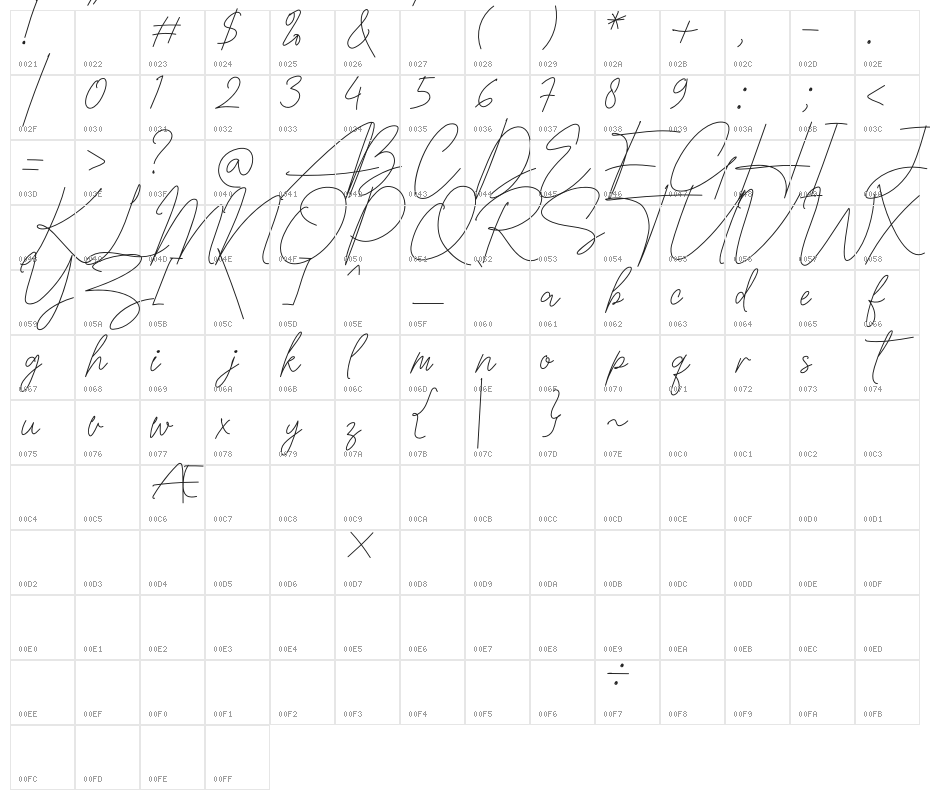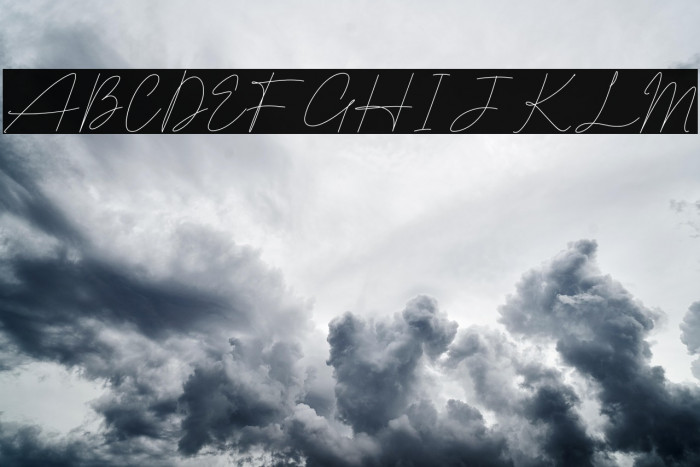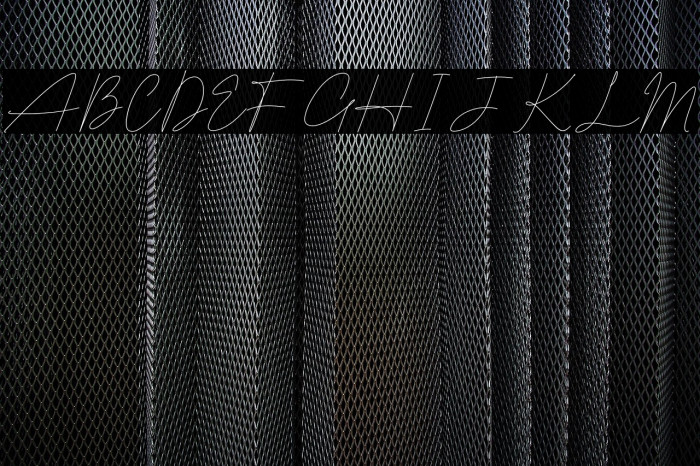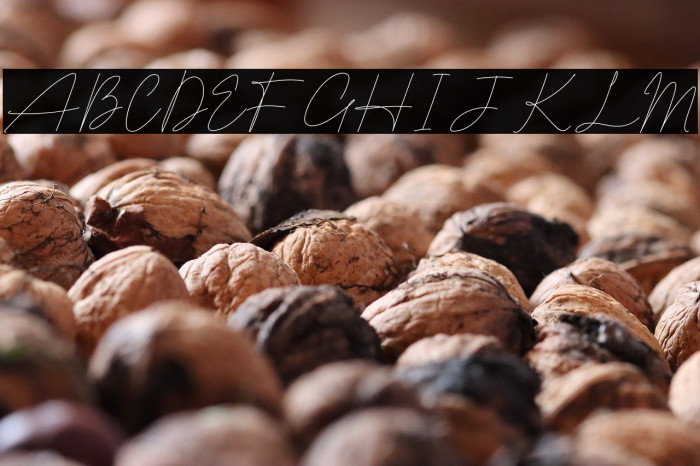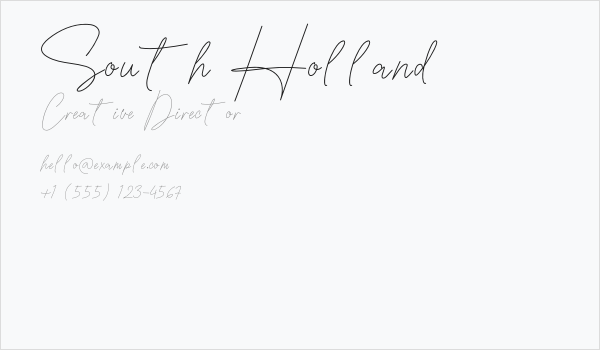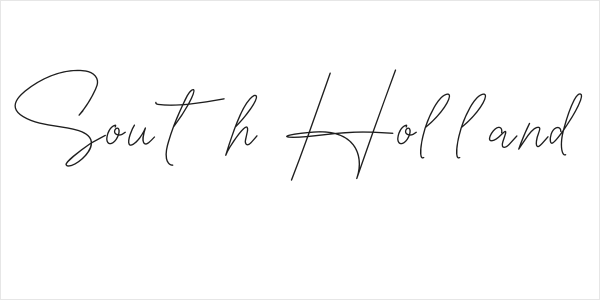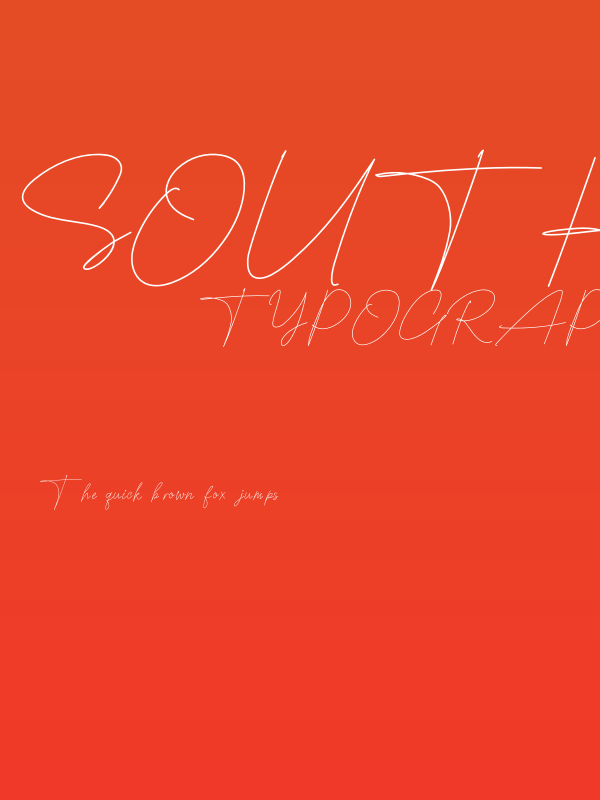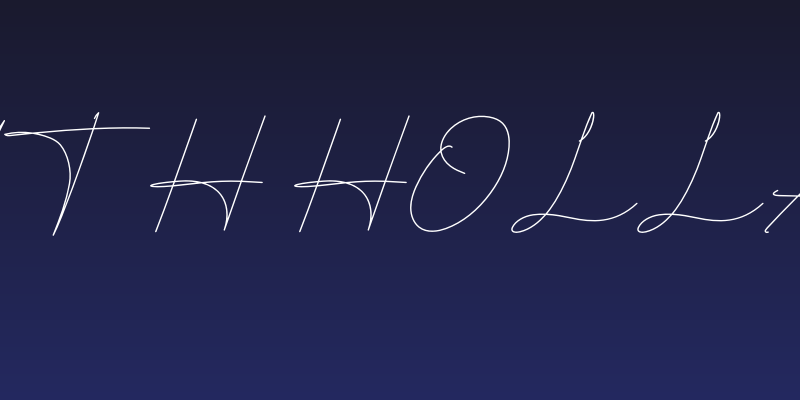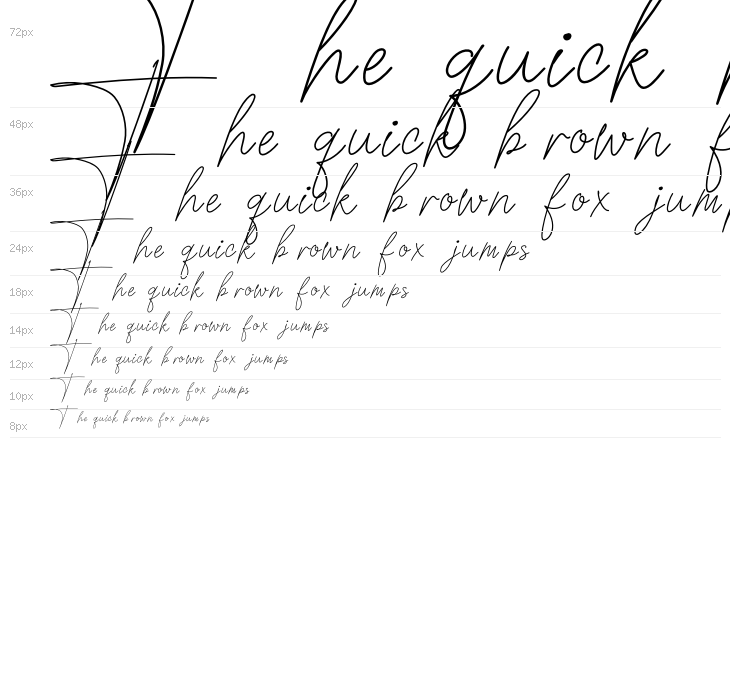
South Holland Font
South Holland Description
This font features a fluid, cursive style with a handwritten appearance, characterized by elegant, flowing lines and a natural, organic feel. The uppercase letters are slightly more structured, while the lowercase letters exhibit a more freeform, casual style. The numerals maintain the same fluidity, ensuring consistency across the character set. Special characters are seamlessly integrated, enhancing the font's versatility. The overall design is both sophisticated and approachable, making it suitable for a variety of creative applications.